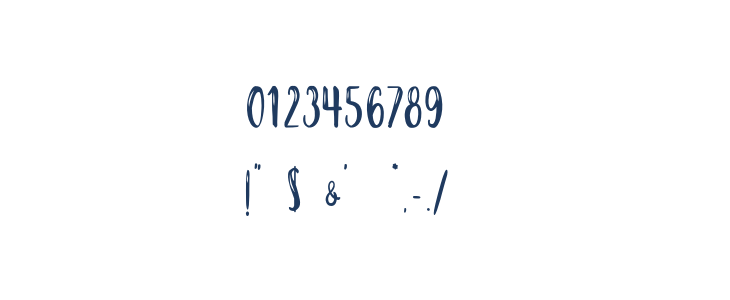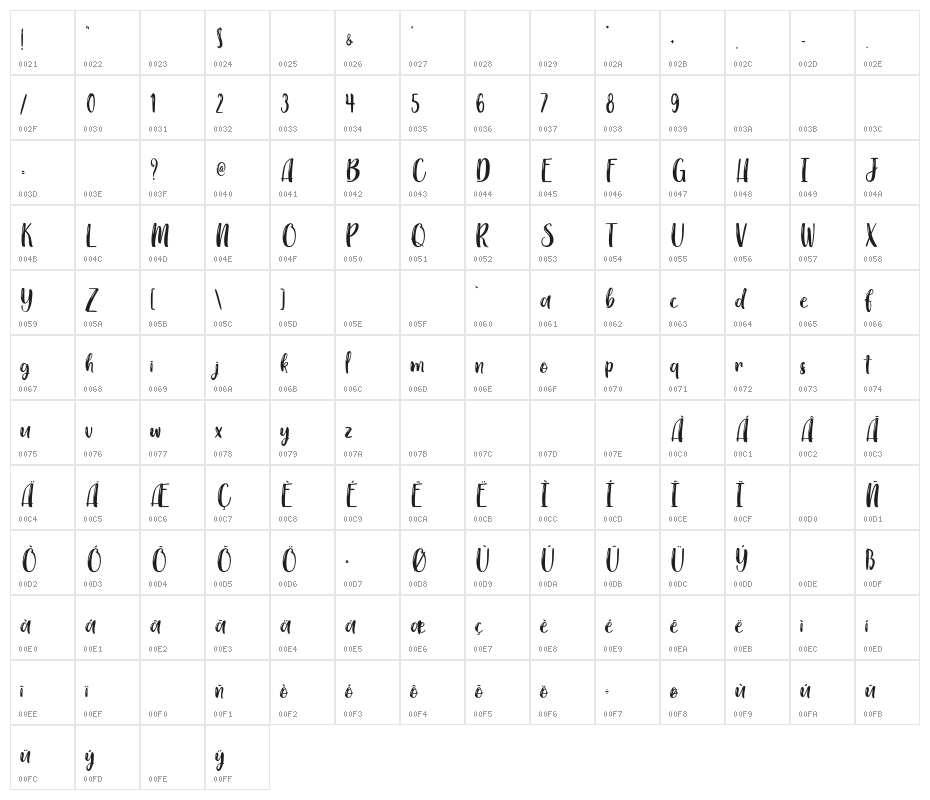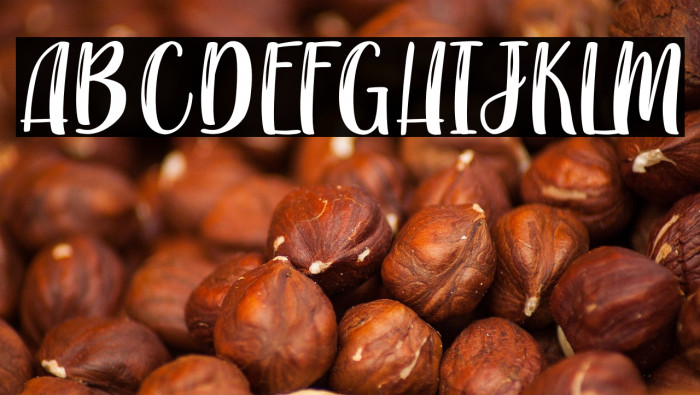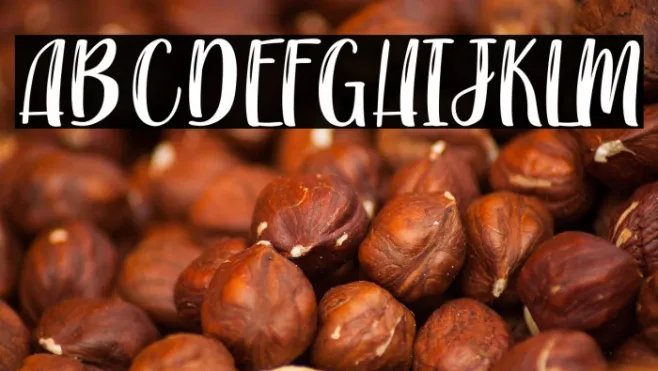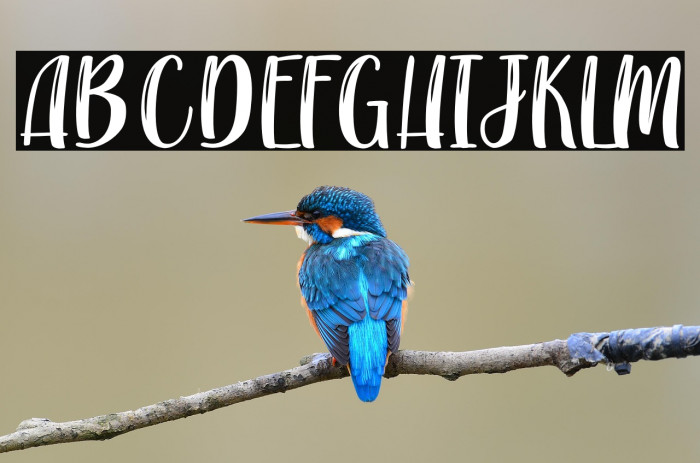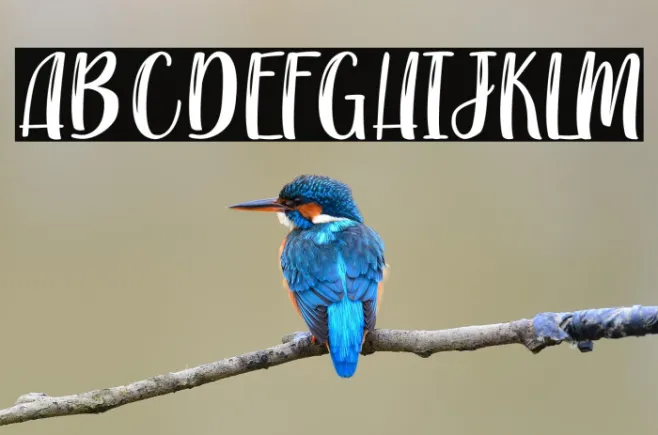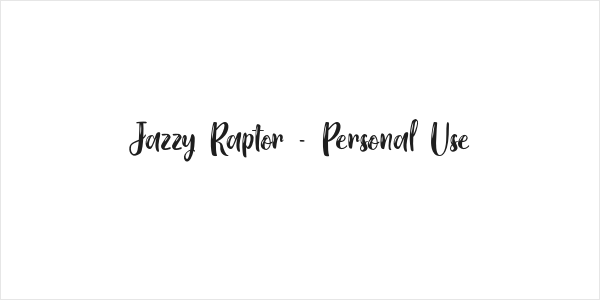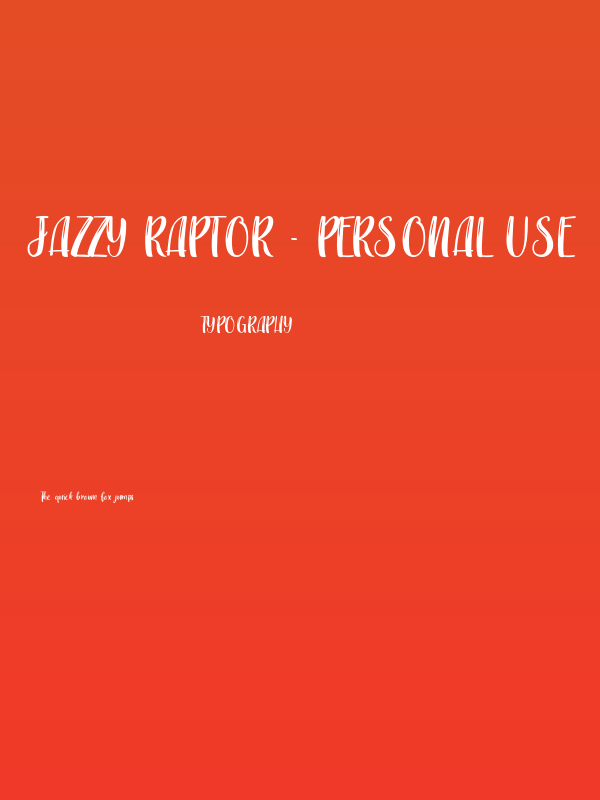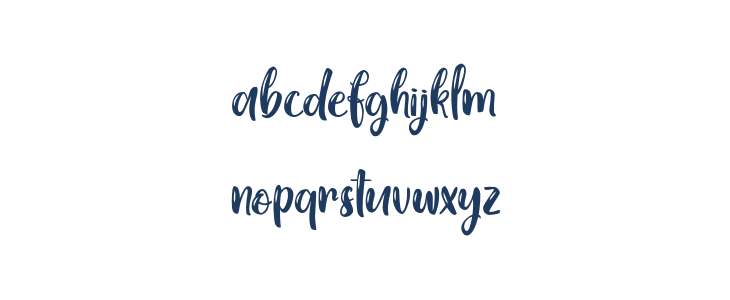
Jazzy Raptor - Personal Use Font
Jazzy Raptor - Personal Use Description
This font features a lively and dynamic script style with a handwritten appearance. The uppercase letters are bold and expressive, with a playful flair that adds character to each letterform. The lowercase letters maintain a consistent flow, enhancing the font's overall fluidity. Numbers and special characters are designed to match the energetic style, making them suitable for creative and informal designs. The strokes vary in thickness, providing a medium contrast that adds depth and interest. This font is perfect for projects that require a personal touch, such as invitations, greeting cards, and branding materials.